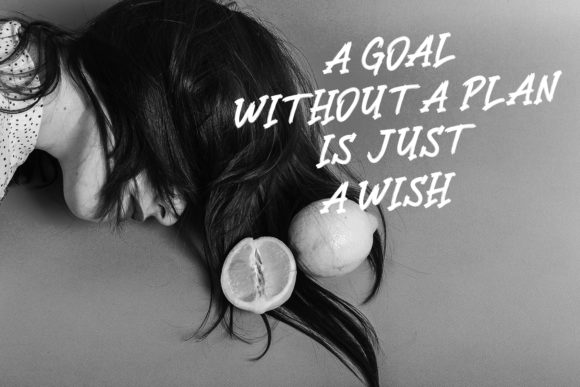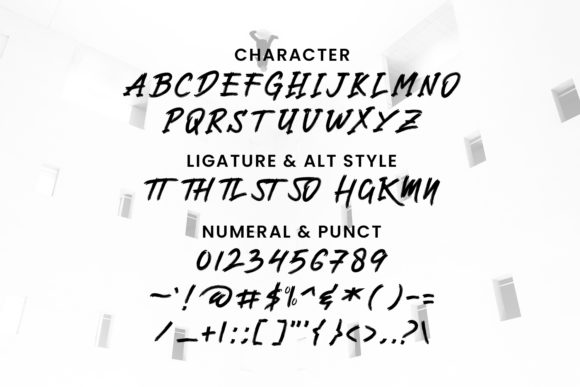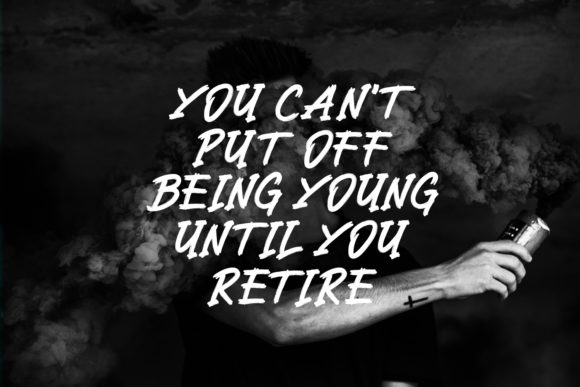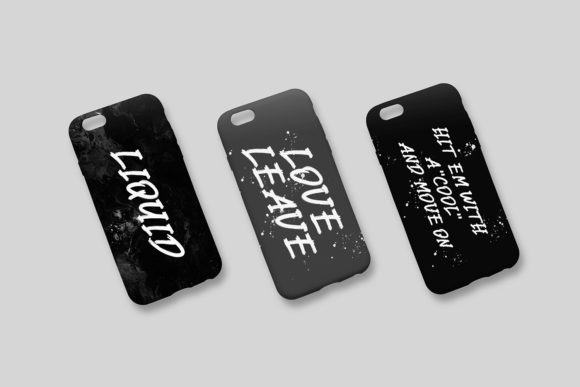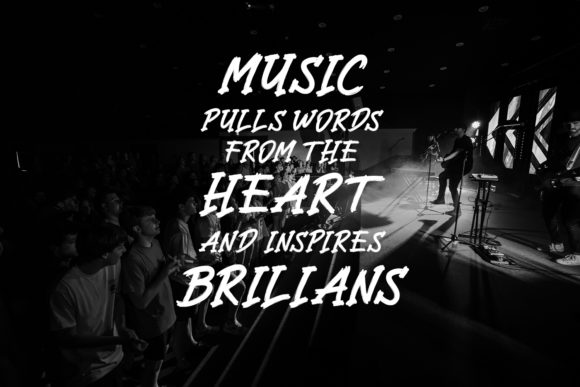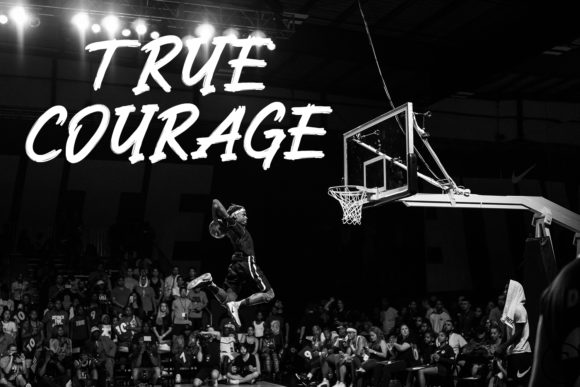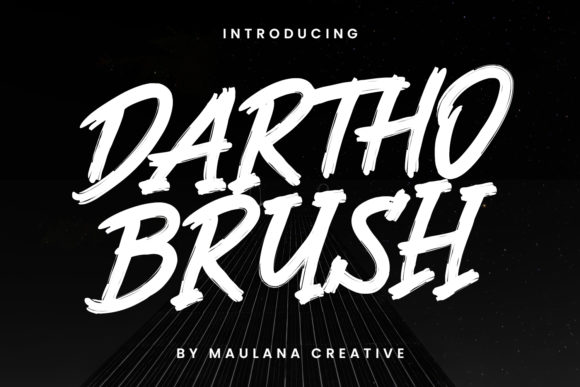
Dartho Brush Font: Elevate Your Designs with a Bold and Brushed Display Font
Are you tired of using the same old fonts for your designs? Do you want to add a touch of personality and uniqueness to your projects? Look no further than Dartho Brush Font, a bold and brushed display font that is sure to make your designs stand out. In this article, we’ll take a closer look at Dartho Brush Font, its features, and how you can use it to elevate your designs.
What is Dartho Brush Font?
Dartho Brush Font is a bold brushed display font that is designed to make a statement. Its strong lettering and unique brush strokes give it a distinctive look that is sure to grab attention. Whether you’re a designer, crafter, or DIY enthusiast, Dartho Brush Font is a great addition to your font collection.
Key Features of Dartho Brush Font
So, what makes Dartho Brush Font so special? Here are some of its key features:
• Bold and Brushed: Dartho Brush Font has a bold and brushed look that gives it a unique and eye-catching appearance.
• Strong Lettering: The font has strong lettering that is perfect for making a statement.
• Display Font: Dartho Brush Font is a display font, making it perfect for headlines, titles, and other display text.
• Easy to Read: Despite its bold and brushed look, Dartho Brush Font is easy to read, making it perfect for a wide range of designs.
How to Use Dartho Brush Font
So, how can you use Dartho Brush Font in your designs? Here are a few ideas:
• Headlines and Titles: Use Dartho Brush Font to create bold and eye-catching headlines and titles.
• Signs and Posters: Dartho Brush Font is perfect for creating signs and posters that need to grab attention.
• Branding and Packaging: Use Dartho Brush Font to create unique and memorable branding and packaging.
• DIY Projects: Dartho Brush Font is also great for DIY projects, such as crafting, scrapbooking, and journaling.
Tips for Using Dartho Brush Font
Here are a few tips for using Dartho Brush Font effectively:
• Use it Sparingly: Because Dartho Brush Font is so bold, it’s best to use it sparingly. Use it for headlines and titles, but not for body text.
• Experiment with Colors: Dartho Brush Font looks great in a wide range of colors. Experiment with different colors to find the one that works best for your design.
• Pair it with Other Fonts: Dartho Brush Font pairs well with other fonts. Experiment with different font combinations to find the one that works best for your design.
Dartho Brush Font is a bold and brushed display font that is sure to elevate your designs. Its strong lettering and unique brush strokes give it a distinctive look that is sure to grab attention. Whether you’re a designer, crafter, or DIY enthusiast, Dartho Brush Font is a great addition to your font collection. With its ease of use and versatility, you can use Dartho Brush Font to create a wide range of designs, from headlines and titles to signs and posters. So why wait? Download Dartho Brush Font today and start creating stunning designs that stand out from the crowd!